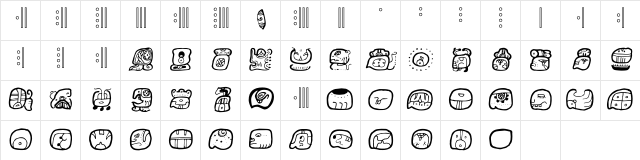
DaysCod Regular Free Font
DaysCod Regular
DaysCod Family
Complete DaysCod Regular glyph index. Displaying only characters natively supported by DaysCod Regular font.
Design Context for DaysCod
DaysCod is a composed and adaptable typeface that performs quietly and consistently across a wide range of design contexts.